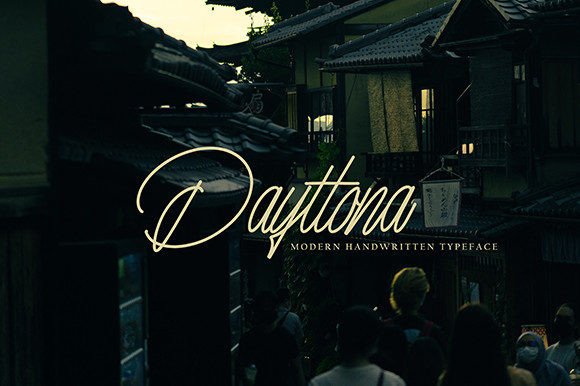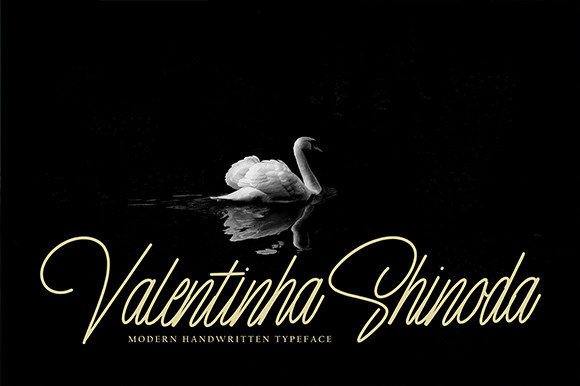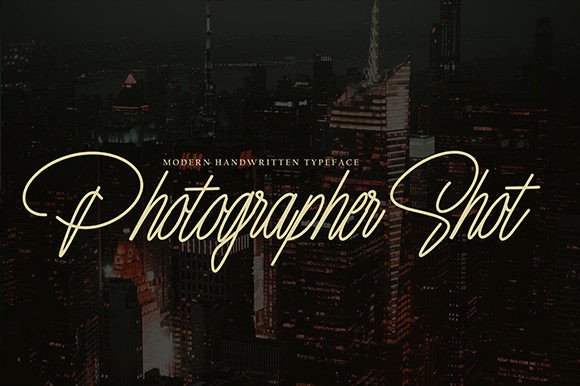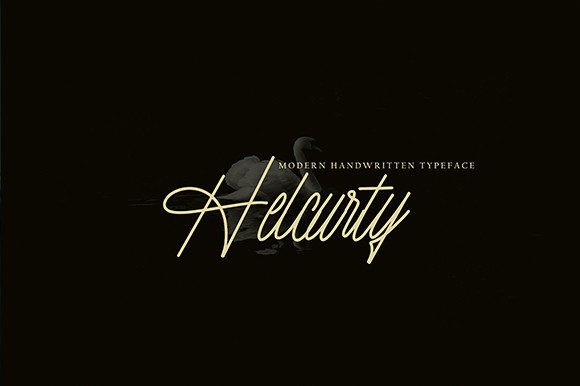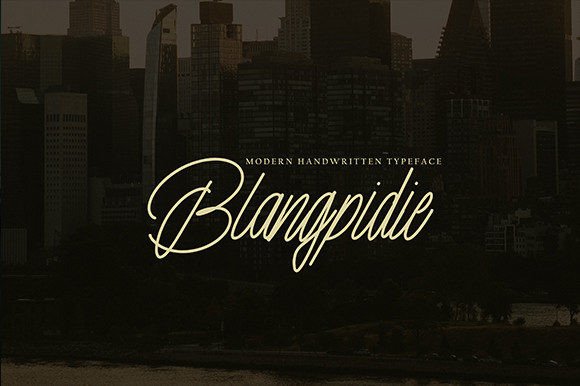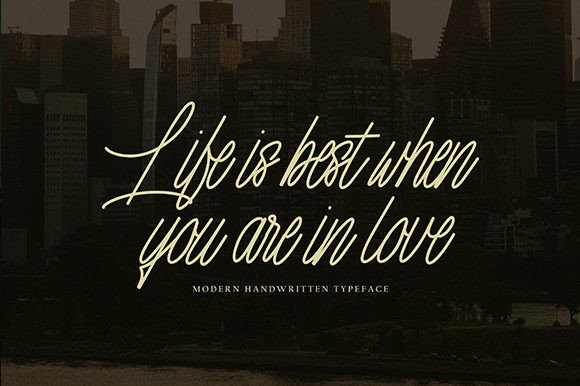
The Designer’s Delight: Fayttuli Gaby Font
I still remember the time I was working on a project for a client who wanted a elegant and sophisticated look. I had spent hours browsing through my font library, but nothing seemed to fit the bill. That’s when I stumbled upon Fayttuli Gaby, a dazzling script font that caught my eye. I was immediately drawn to its neat and detailed craftsmanship, and I knew I had found the perfect asset for my font library.
Fayttuli Gaby is a true gem in the world of script fonts. Here’s what I love about it:
- ✨ Highly detailed and neatly crafted: Fayttuli Gaby boasts intricate details and a refined aesthetic that elevates any design.
- ✅ Versatile: This font can be used for a wide range of topics and projects, from wedding invitations to branding and advertising.
- 💫 Elegant and sophisticated: Fayttuli Gaby exudes a sense of luxury and refinement, making it perfect for high-end designs.
However, I do have to mention a few minor quirks:
- 🤔 Limited use for body text: While Fayttuli Gaby is stunning, it’s not the best choice for long blocks of text. It’s better suited for headings and titles.
- ⚠️ Some characters may require adjustment: Depending on the context, some characters may need to be adjusted to ensure proper kerning and spacing.
- Experiment with OpenType features, such as stylistic alternates and glyphs, to add visual interest to your text.
- Explore the Glyphs panel to access additional characters and OpenType features.
The Story Behind Fayttuli Gaby
Fayttuli Gaby was designed by a team of skilled typographers who aimed to create a font that would bring a touch of elegance and sophistication to any design. Inspired by traditional calligraphy, Fayttuli Gaby boasts intricate details and a refined aesthetic. The font’s name is derived from the combination of the designers’ names, Fay and Gaby, who worked tirelessly to bring this beautiful font to life.
| Author | Pineungtype & Missinklab |
| Is Fayttuli Gaby suitable for body text? | While Fayttuli Gaby is stunning, it’s not the best choice for long blocks of text. It’s better suited for headings and titles. |